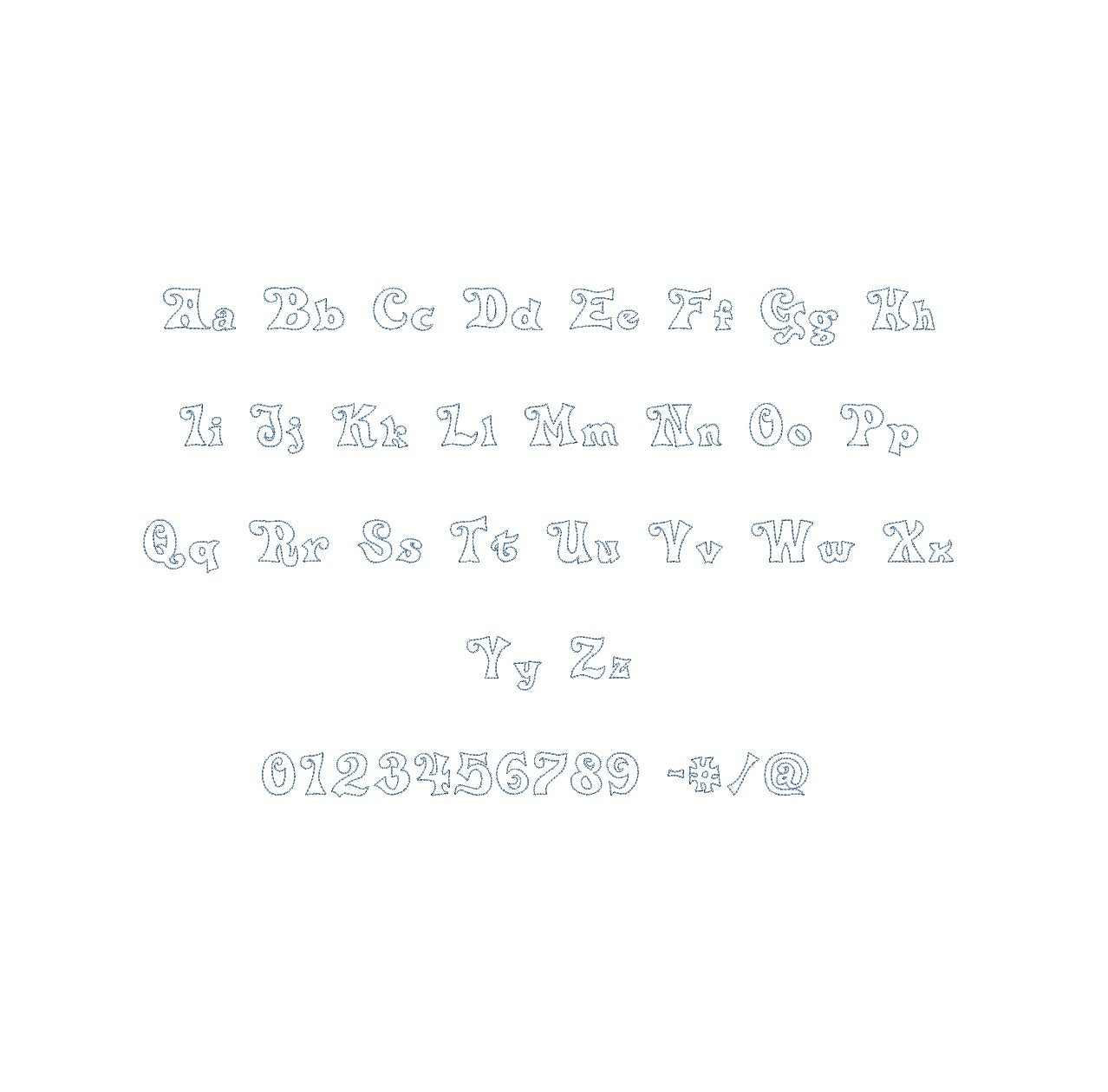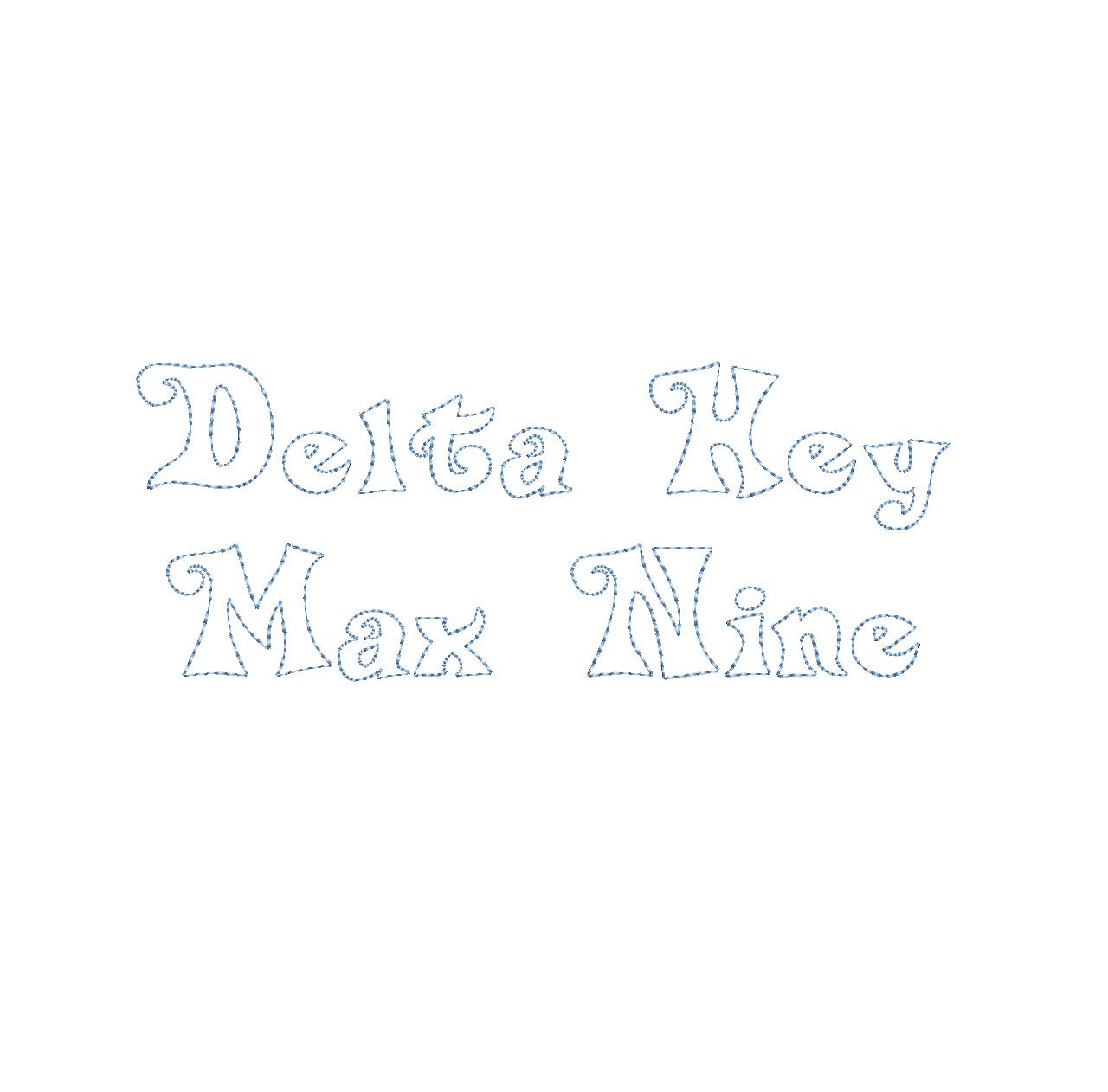
Elevate your embroidery with the Delta Hey Max Nine Bean Stitch Outline ESA font, designed for compatibility with Wilcom Studio e4.5.6 and Hatch 3 versions and beyond. This font infuses your designs with a contemporary twist, perfect for monograms, labels, and decorative elements. Its intricate bean outline style adds depth and sophistication. Seamlessly integrate and stitch precisely for enhanced embroidery projects. Discover endless creative opportunities in Wilcom Studio and Hatch software using the Delta Hey Max Nine Bean Stitch Outline ESA font. Elevate your designs and stand out today with this exceptional font.